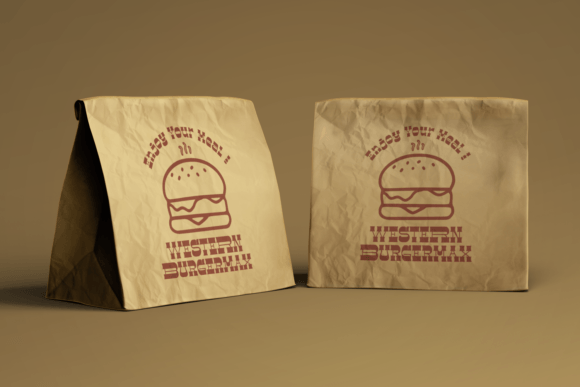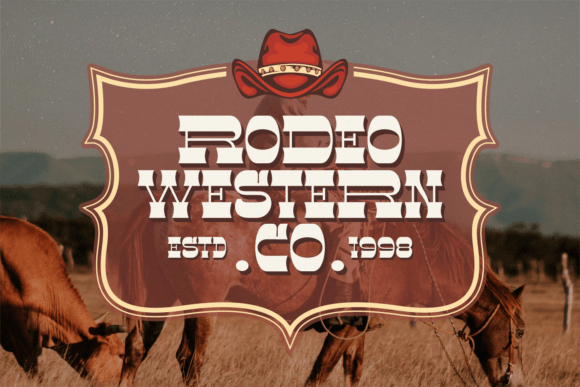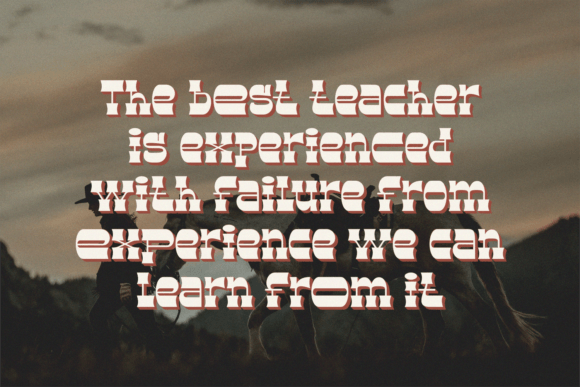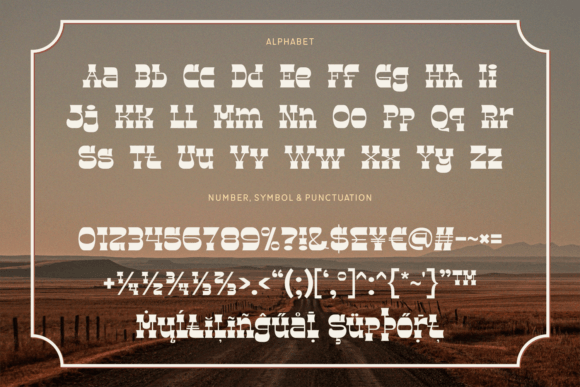
Get Ready to Rustle Up Some Creativity with the Browney Font
Have you ever been working on a design project and suddenly, the perfect font just clicks into place, making all the difference in the world? That’s exactly what happened to me when I stumbled upon the Browney Font. Its unique western slab serif style immediately caught my attention, and I knew I had to share it with fellow designers.
The Browney Font is a stunning typeface designed to evoke a sense of rustic charm and strength. Perfect for branding, advertising, and any project that demands a strong visual impact, this font is a valuable addition to any designer’s toolkit. With its PUA encoding, you can access all glyphs and swashes effortlessly, making it a breeze to create stunning designs that make a statement. Whether you’re a seasoned pro or just starting out, the Browney Font is sure to inspire your next creative project.
Browney Font Review
Overall, I was excited to dive into the world of Browney Font, and I must say, it’s a mixed bag for me. ✨ Here are some things that work well:
- Unique aesthetic: Browney Font has a distinct, earthy feel that can add a touch of warmth to any design project.
- Legibility: The font is surprisingly easy to read, even at smaller sizes, which is a big plus in my book.
- Customizability: Browney Font offers a range of weights and styles, making it easy to find the perfect fit for your project.
- Limited language support: Browney Font only includes Latin-based languages, which might be a problem for projects that require support for other languages.
- Not ideal for small text: While Browney Font is legible, it can get a bit cluttered when used for very small text sizes.
Overall, I’d say Browney Font is a solid choice for projects where you want to add a touch of warmth and personality. While it’s not without its limitations, it’s a unique and versatile font that can add some real depth to your designs.
Browney Font is perfect for creative projects, such as invitations, brochures, and social media graphics. It’s also great for adding a touch of personality to business documents and presentations.